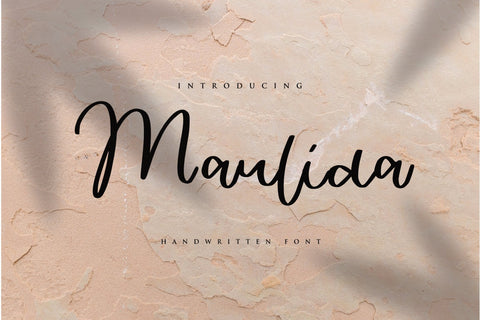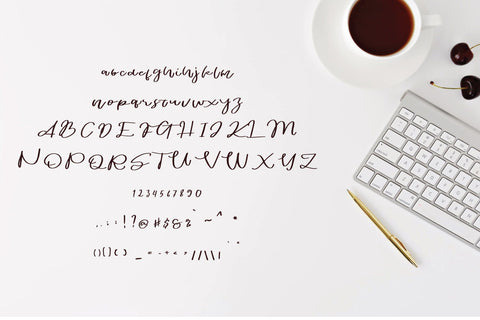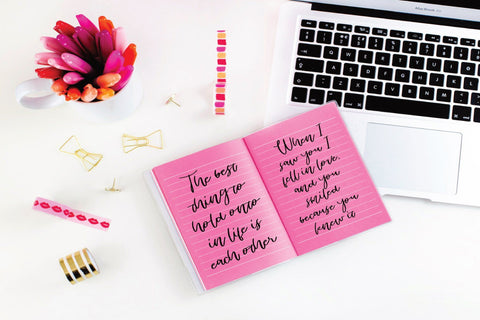
Maulida Font
suitable for any projects such as: logos, branding projects, homeware designs, product packaging, mugs, quotes, posters, shopping bags, t-shirts, book covers, name card, invitation cards, greeting cards, label, photography, watermark, special events, and all your other lovely projects that need a beautiful calligraphy taste.